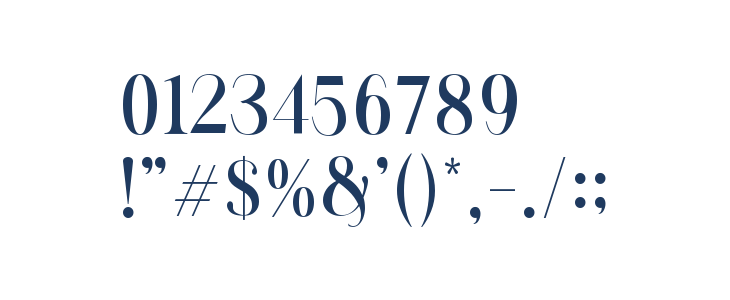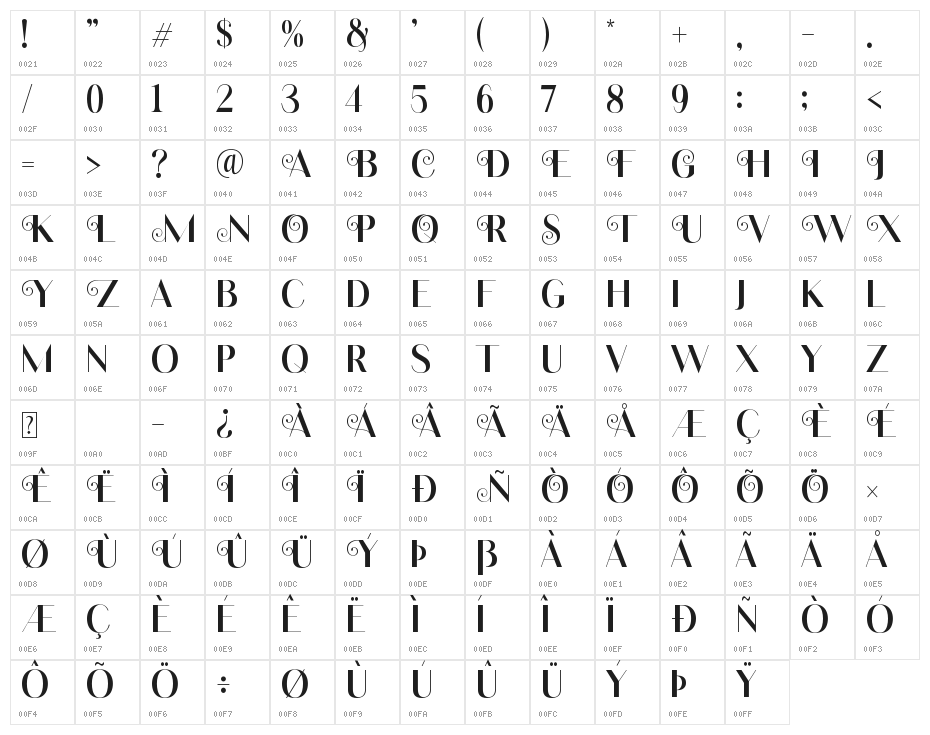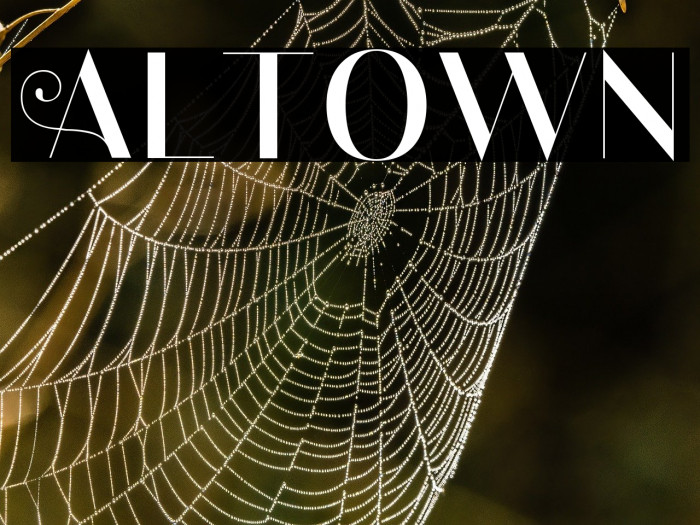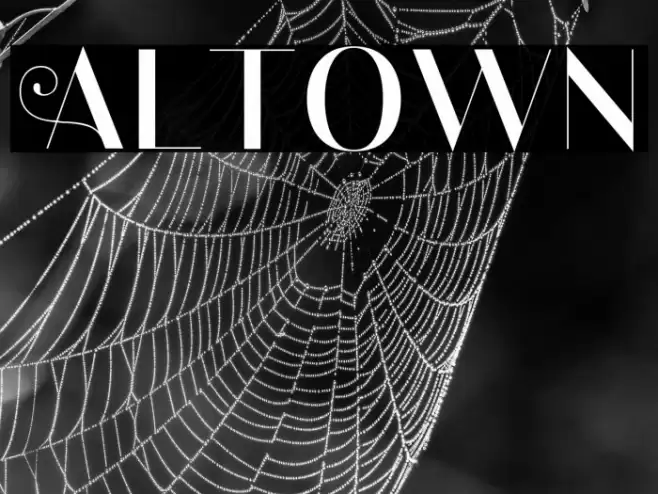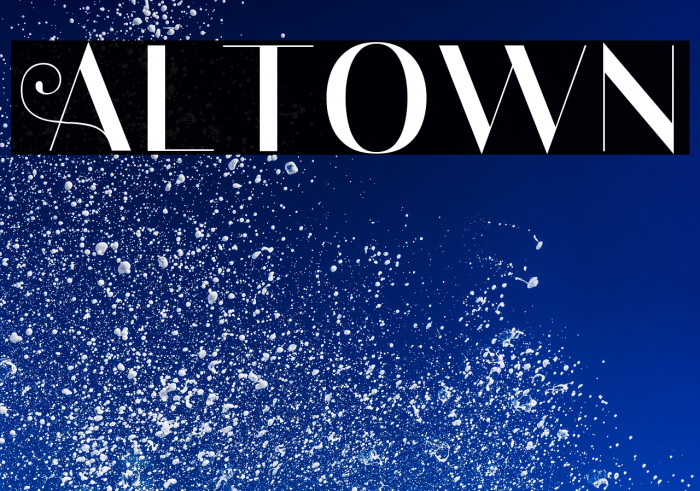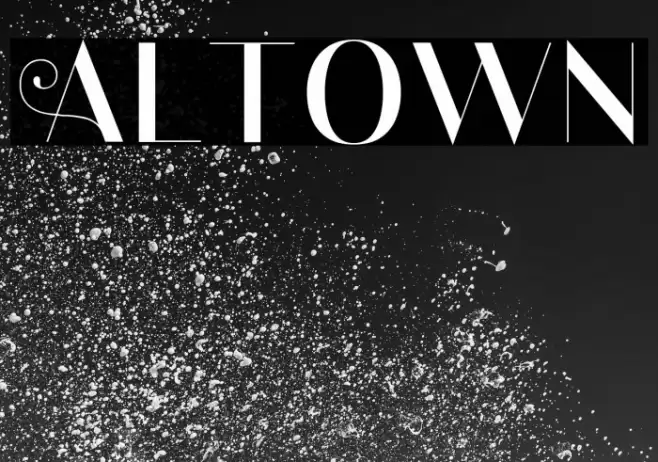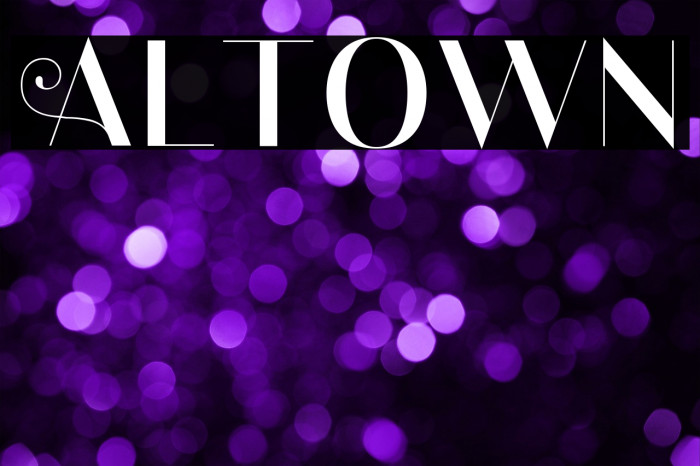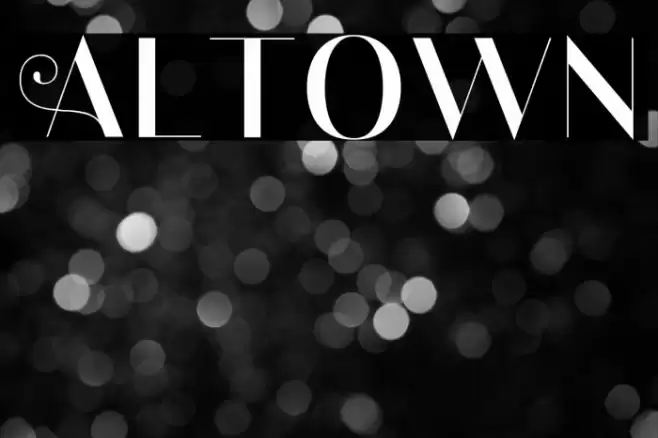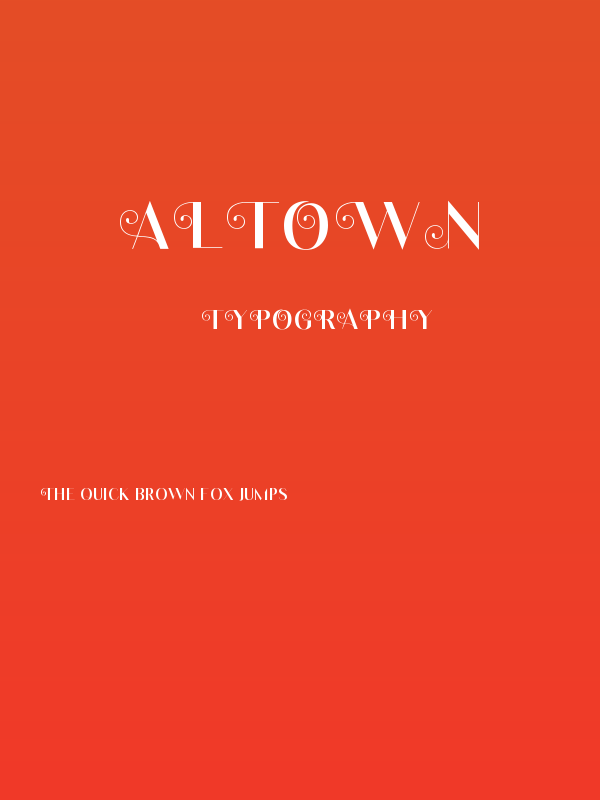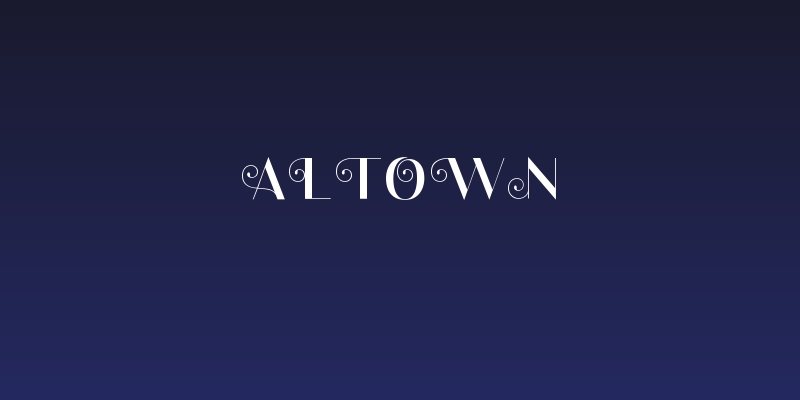
Altown Font
Altown Description
This font features a unique blend of elegance and modernity, characterized by its decorative swirls on certain letters, adding a touch of sophistication. The uppercase letters exhibit a stylish flair with intricate curls, while the lowercase letters maintain a clean and sleek appearance. The numerals are bold and well-defined, ensuring clarity and readability. Special characters are thoughtfully designed to complement the overall aesthetic, making this font versatile for various design needs. The balance between decorative elements and readability makes it suitable for both artistic and professional applications.
| Proposed Projects | Ideal for wedding invitations, luxury branding, editorial design, and artistic posters. |